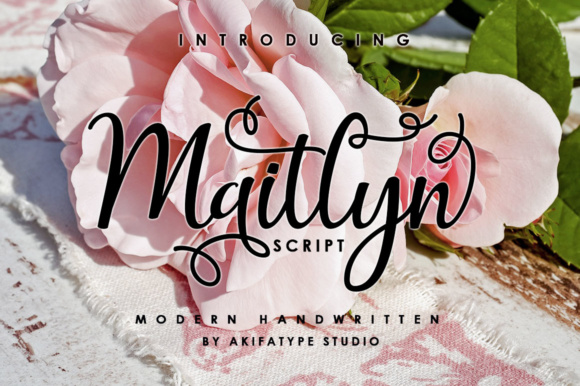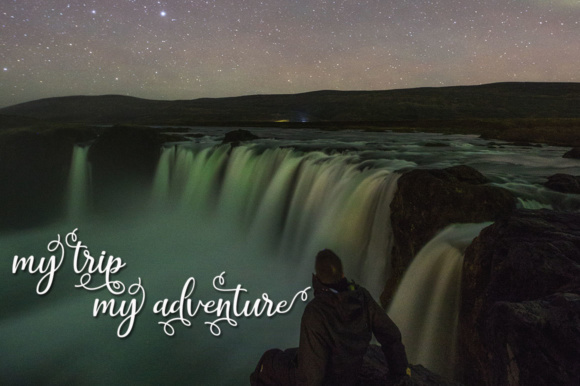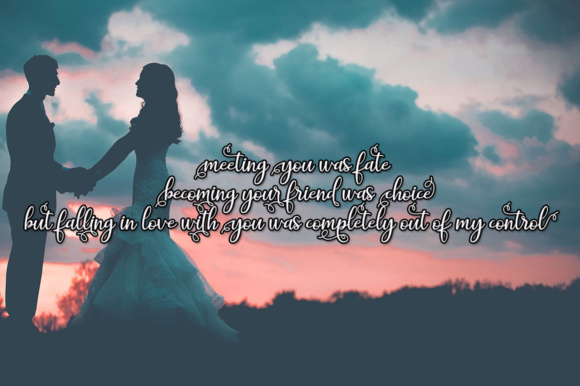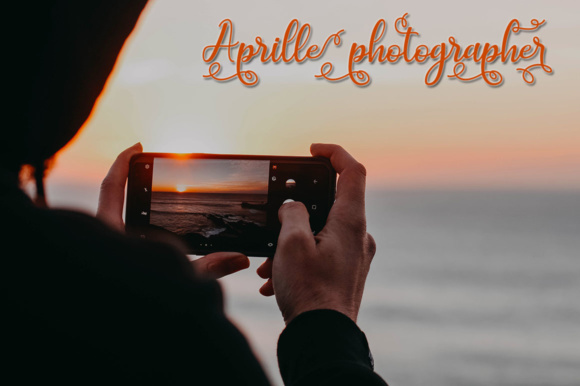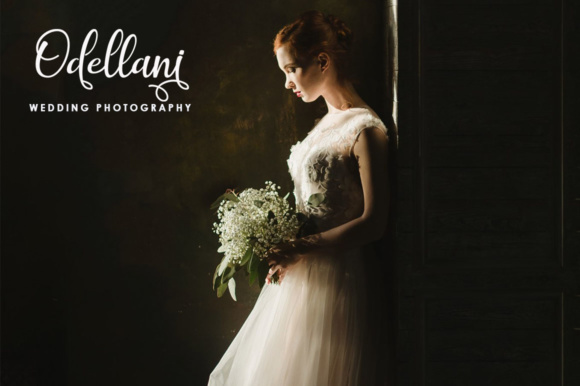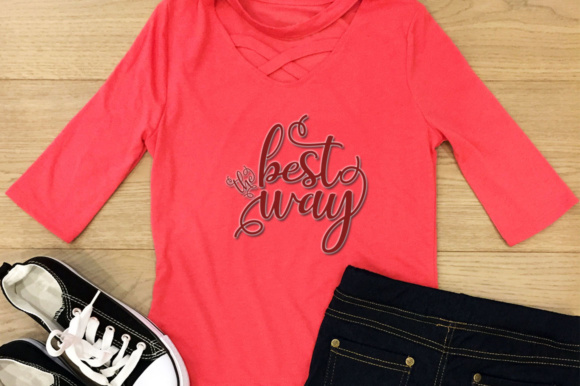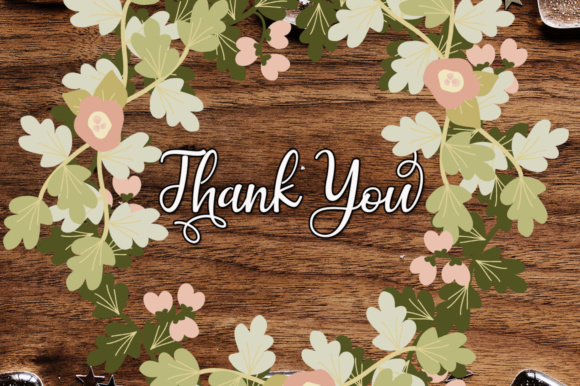
Maitlyn Script Font
About Maitlyn Script Font
The Maitlyn is a beautiful legible script. It’s ideal for a wide range of projects and is a great way to add a vintage yet clean style to your work.